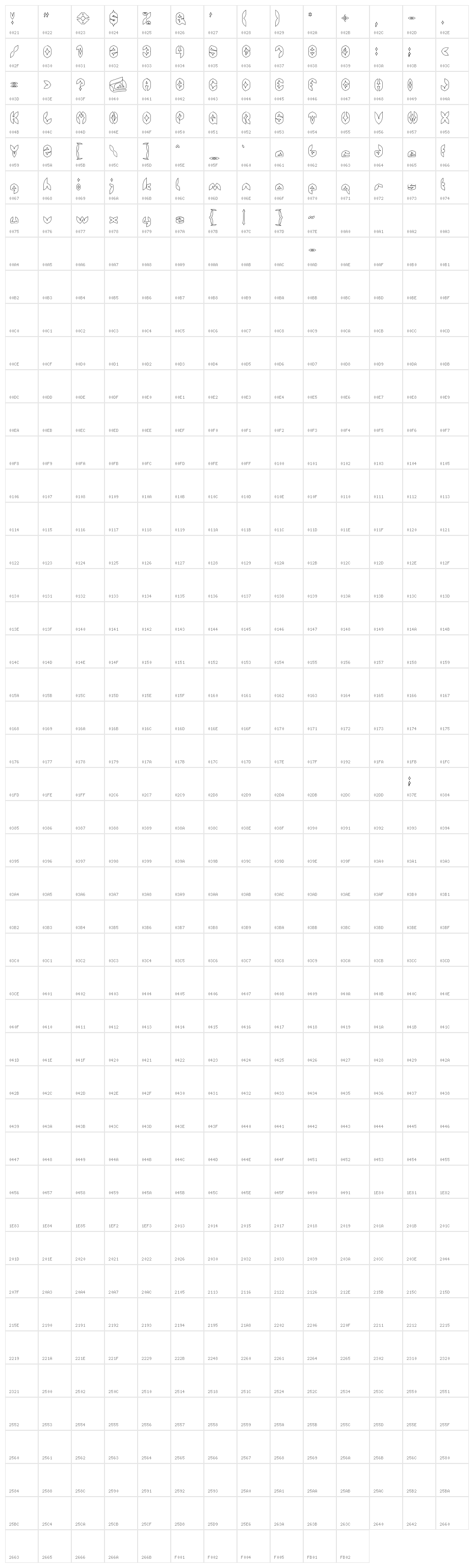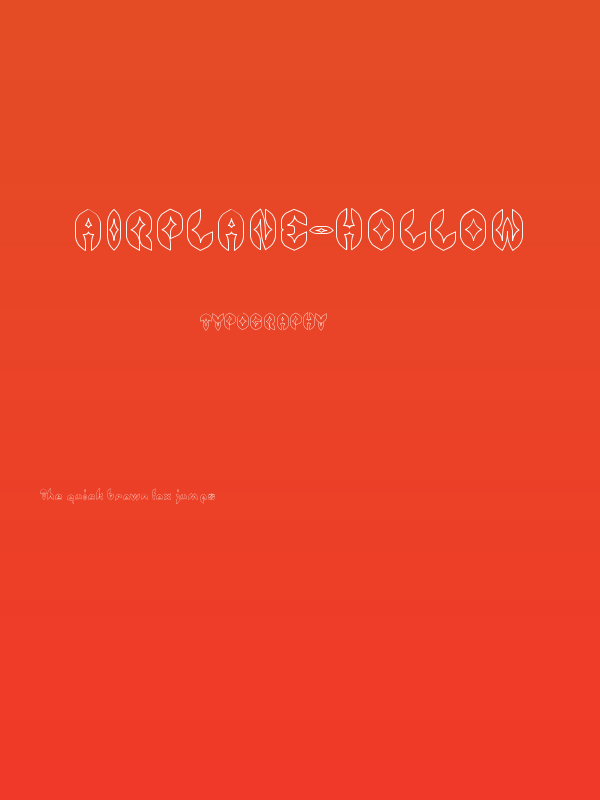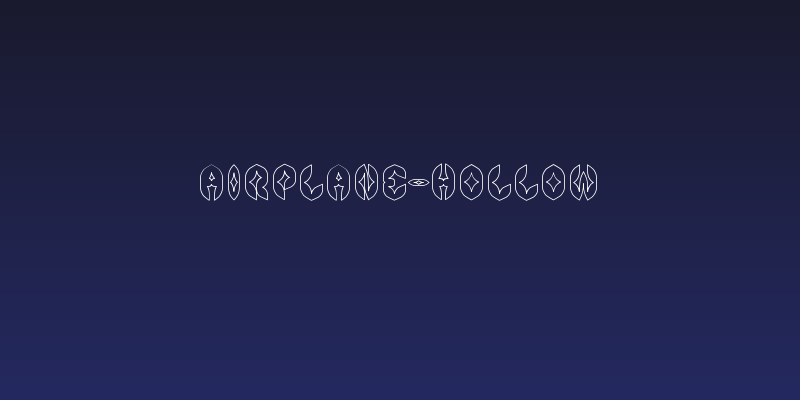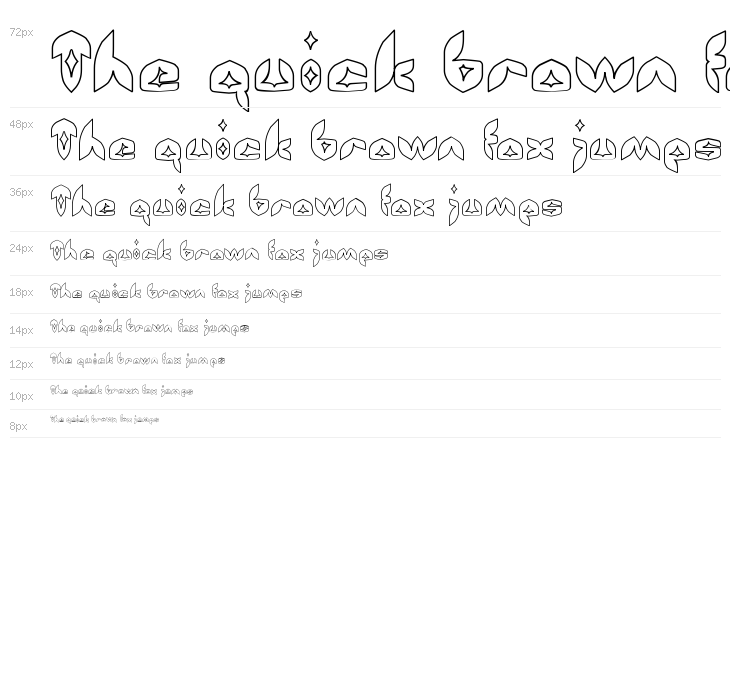
AIRPLANE-Hollow Font
AIRPLANE-Hollow Description
This font features a unique hollow design with geometric shapes and sharp angles, creating a futuristic and edgy appearance. The characters are enclosed within an outline that gives them a distinct, bold look. The uppercase and lowercase letters maintain a consistent style, with angular cuts and pointed edges that add to the overall aesthetic. Numbers and special characters follow the same design principles, ensuring uniformity across the font. The hollow nature of the font allows for creative use of background colors or textures to show through, making it versatile for various design projects.
| Proposed Projects | Ideal for sci-fi themed designs, posters, album covers, and branding that requires a modern and edgy look. |